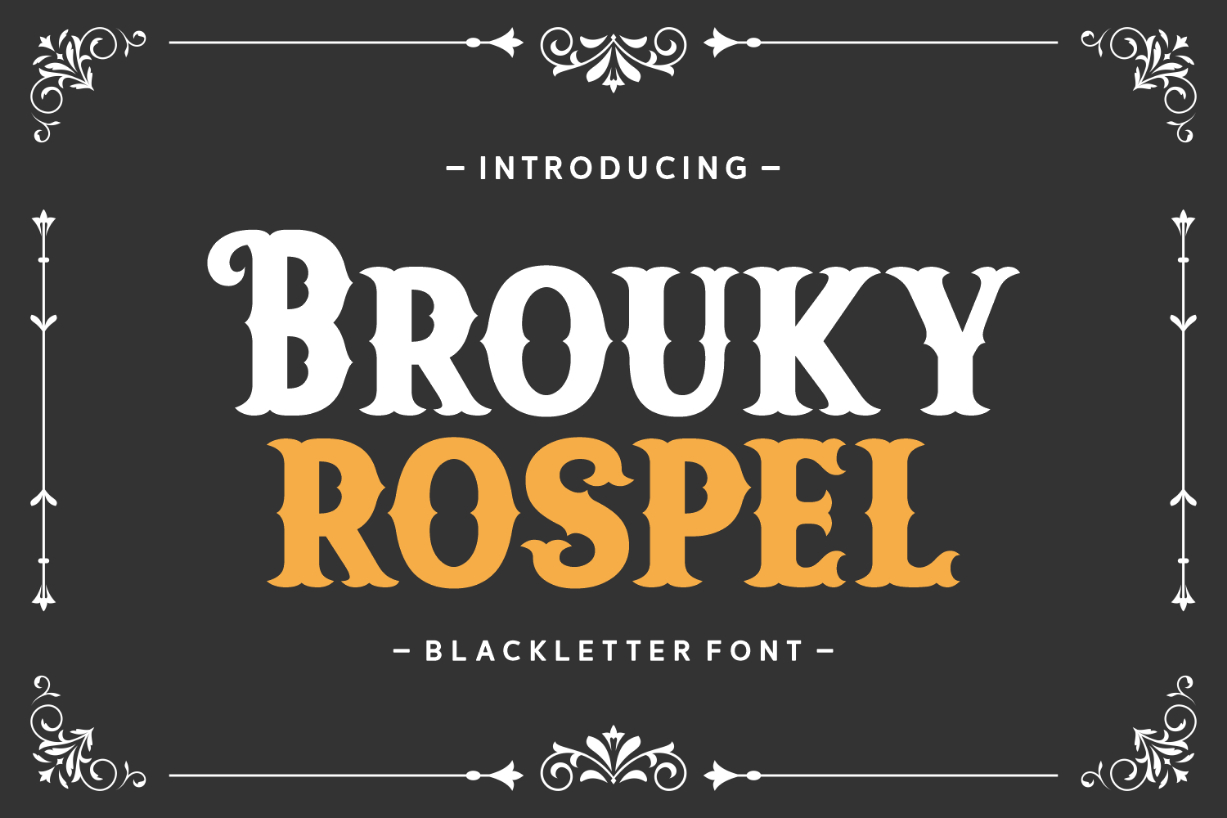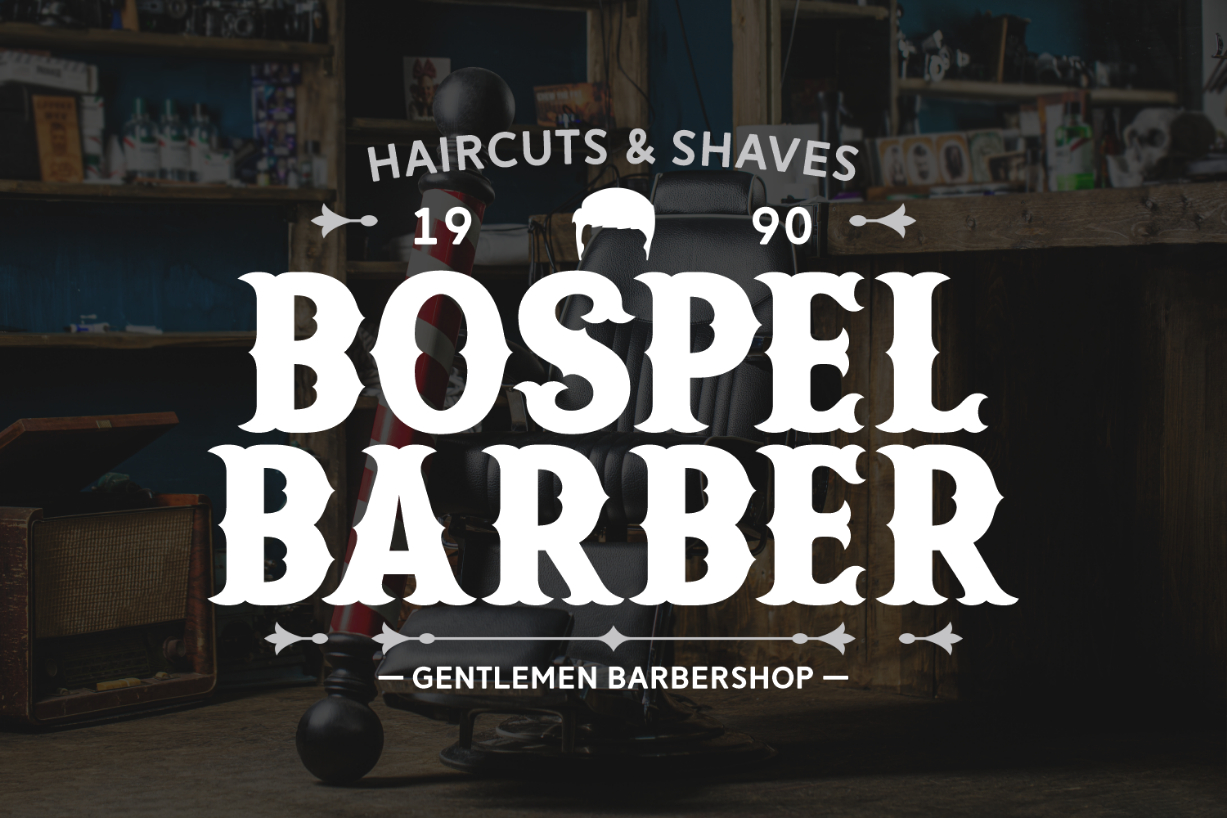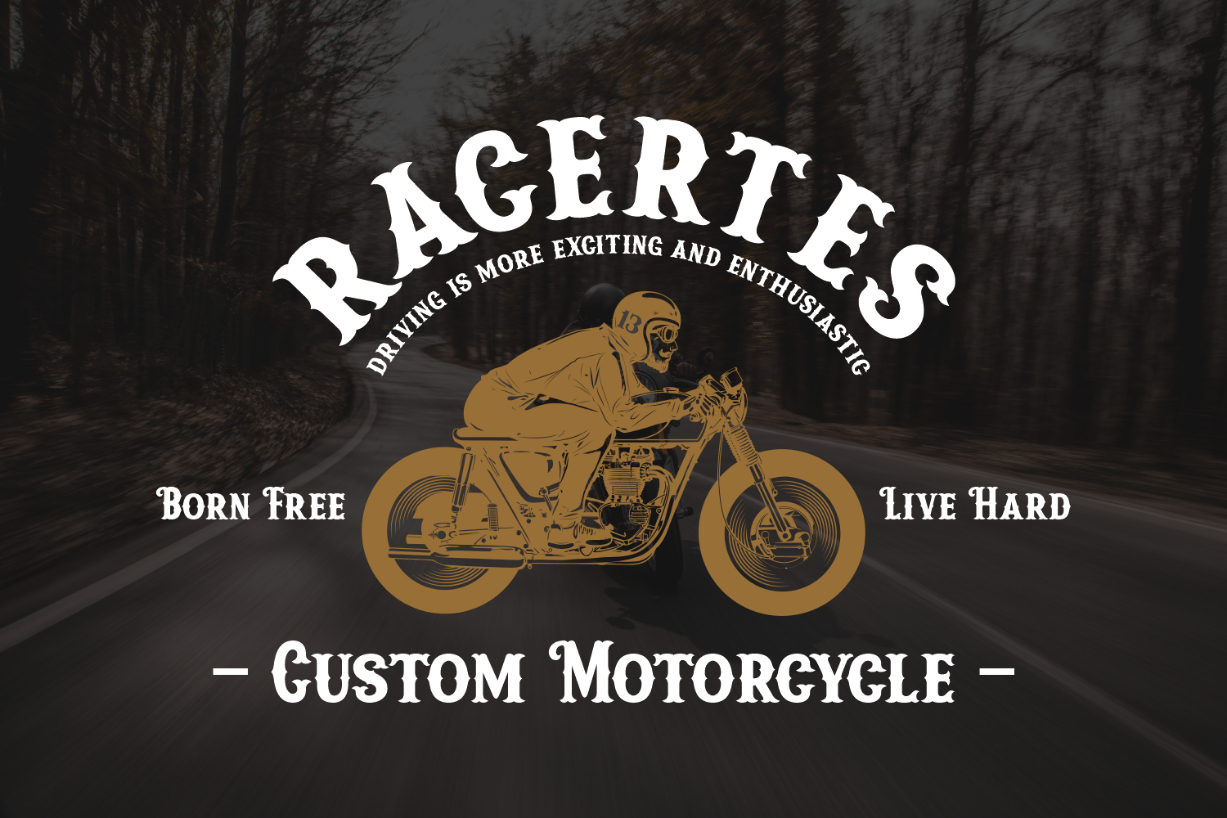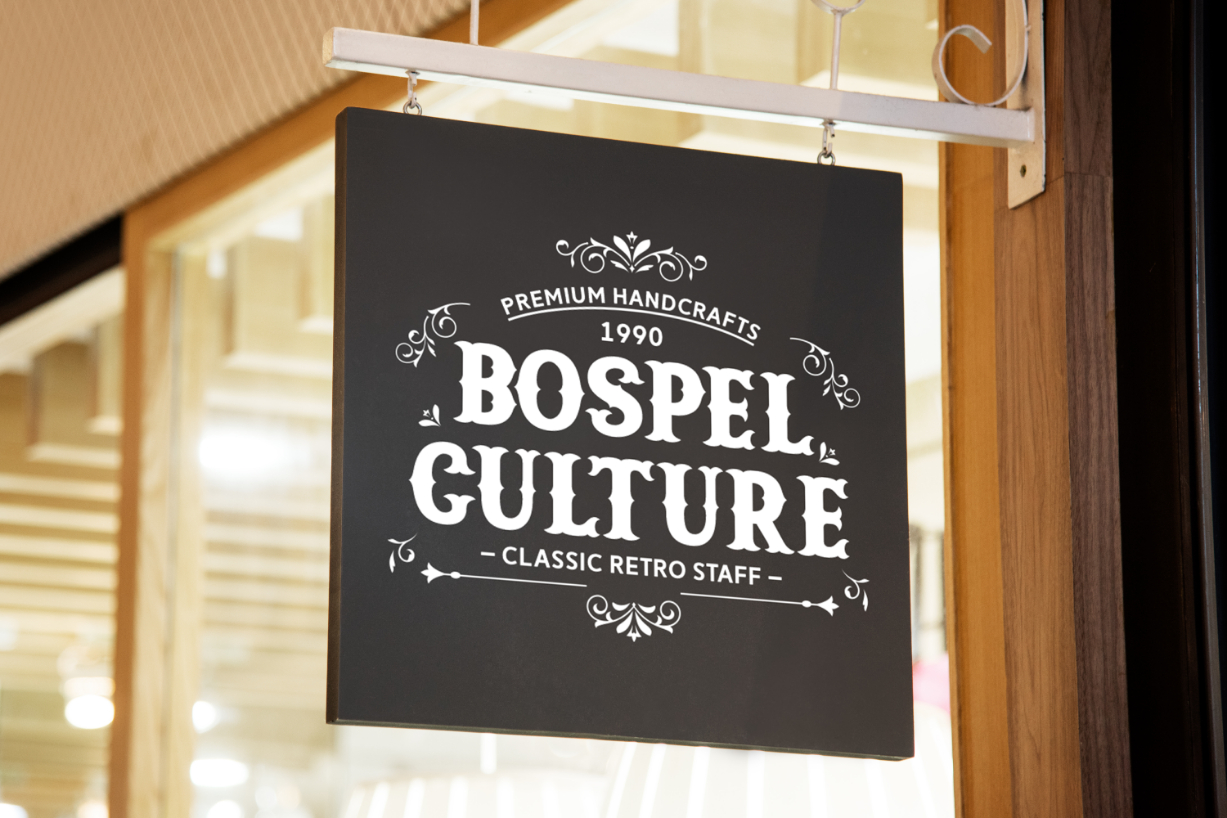
Brouky Rospel Font
About Brouky Rospel Font
Brouky Rospel is a captivating blackletter font. Thick and elegant, this remarkable typeface is perfect for creating eye-catching typography. Use it to bring life to posters, advertisements, t-shirts, logos, websites, and more.